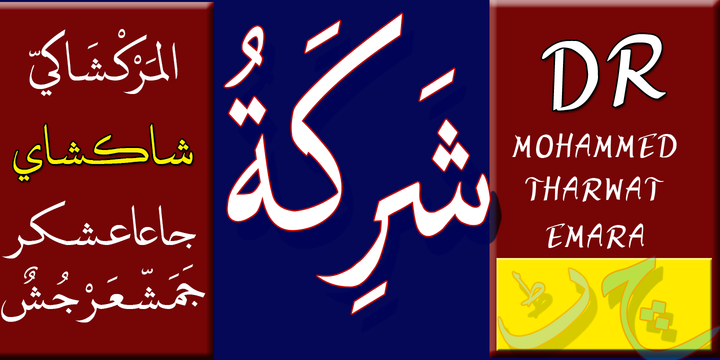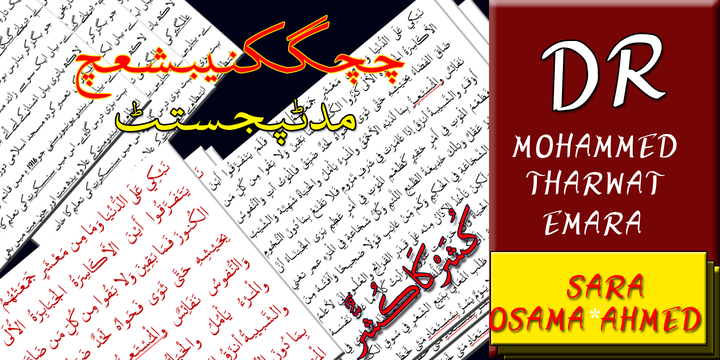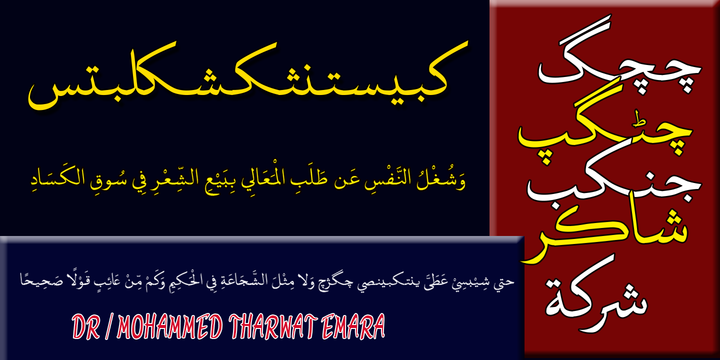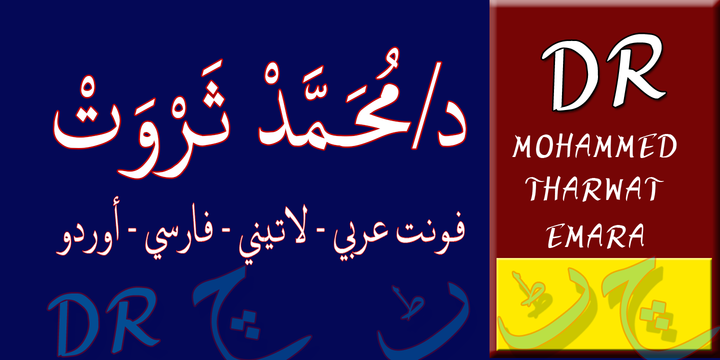
Dr. Mohamed Font Combines the originality and modernity characterized by the strength of the letters and settings of theModulation marks used in the writing of newspapers, magazines, books, childrens books and billboards easy to read and also features new combinations of letters make it was handwritten and this font contains the letters (Arabic - Farsi - Urdu - Latin).